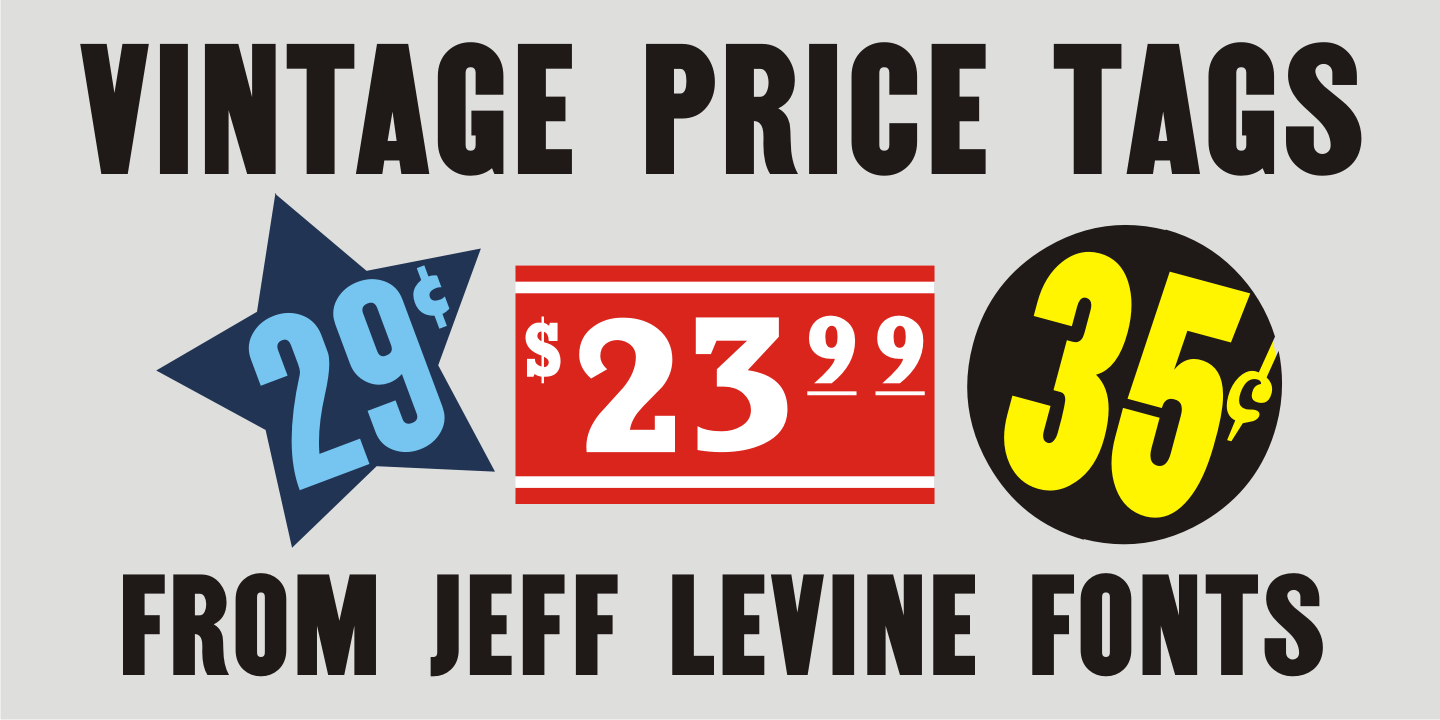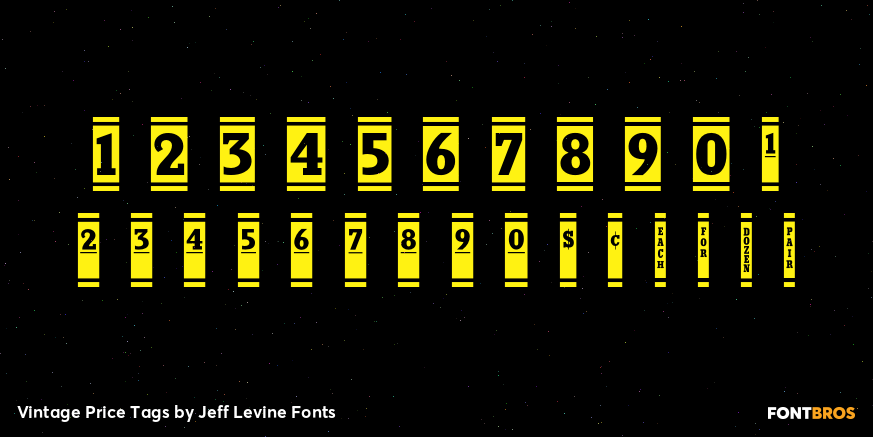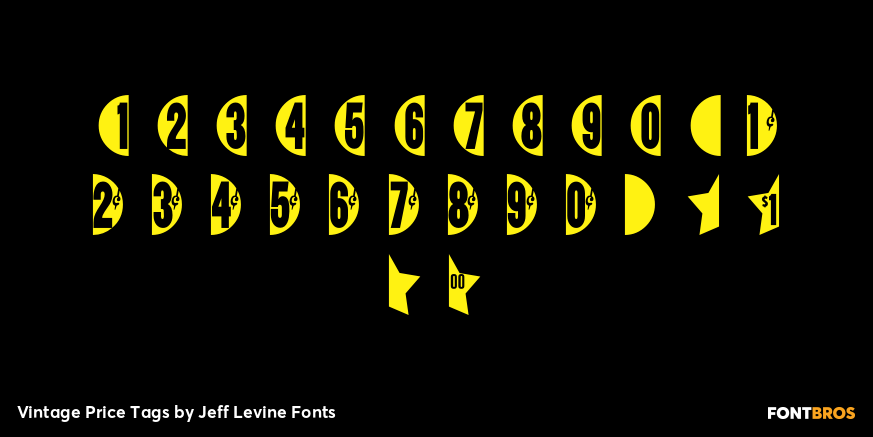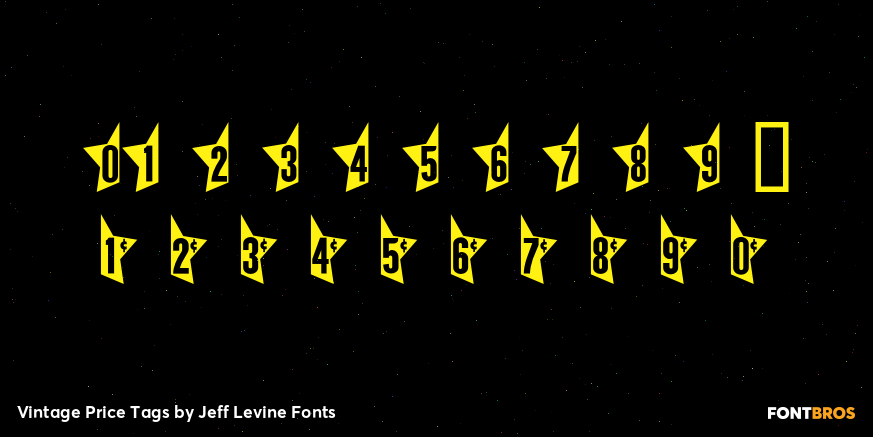
Vintage Price Tags
Vintage Price Tags JNL comprises three sets of numbers in both ribbon, circle and star patterns which, when combined will produce point-of-sale price elements.
The designs were re-drawn from examples found in an old wood type catalog, and are now collected in digital format.
Ribbon-style numbers are found on the upper case keys. A through J have the large numbers, K through T are the smaller, underlined numbers. The remaining upper case keys contain the dollar sign, cents sign and the phrases 'each', 'for', 'dozen' and 'pair'.
On the lower case, the circle set of combination numbers are on the following keystrokes:
The keys a through j are the left side semi-circle numbers and the 'k' key is a blank left side semi-circle. The l through u keys are the right side semicircle numbers and the 'v' keystroke is a blank right side semi-circle.
The star set is on the standard numbers keys for the left side of the star, with the right side characters on the corresponding shift keystrokes for the number keys.
In following the original design examples, a cents sign follows the numbers on the right side of the circle or star sets.
The lower case w through z contain a left side star blank, a left side star with $1, a right side star blank and a right side star with small double zeros (to comprise a star shaped price tag for $1.00).